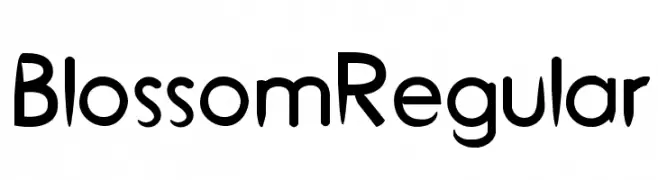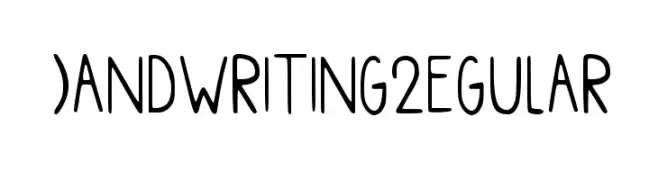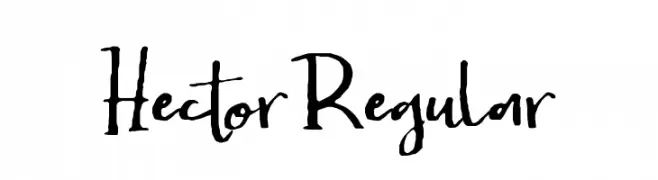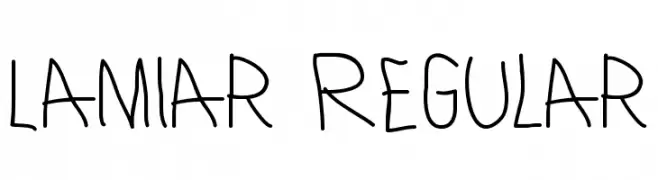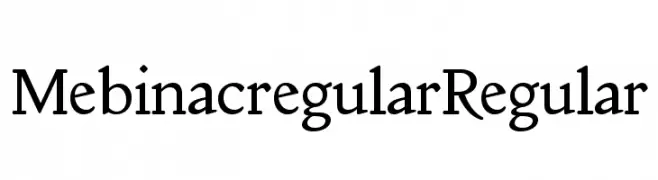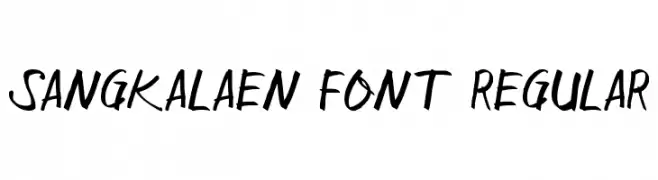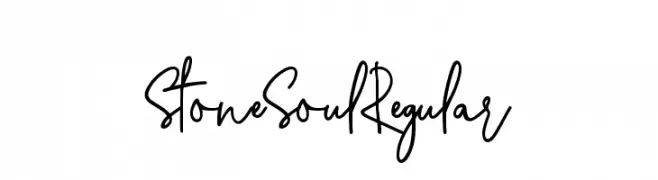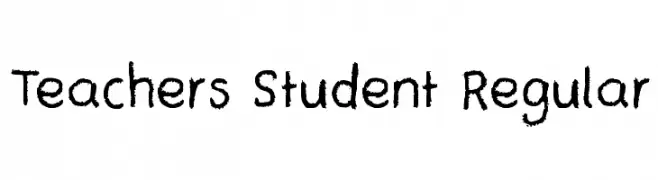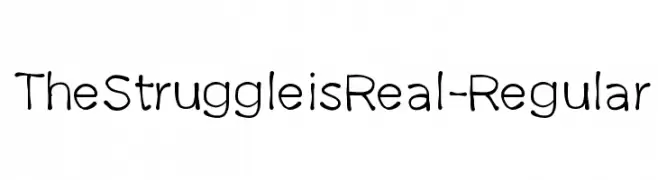
A classic serif font with elegant strokes and versatile applications.
A dynamic, handwritten-style font with fluid and expressive characters.
A playful, hand-drawn font with a whimsical and informal style.
A playful and whimsical font with rounded, smooth letterforms and a hand-drawn feel.
A bold, dynamic handwritten font with playful, irregular strokes.
A playful, handwritten font with an artistic and dynamic style.
A playful, casual handwritten font with uneven strokes and a whimsical touch.
A playful, handwritten-style font with a chalk-like texture.